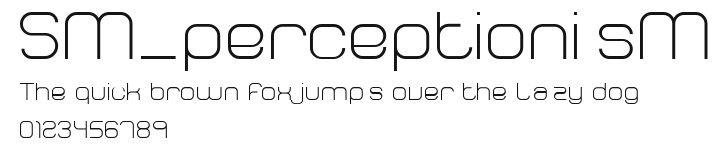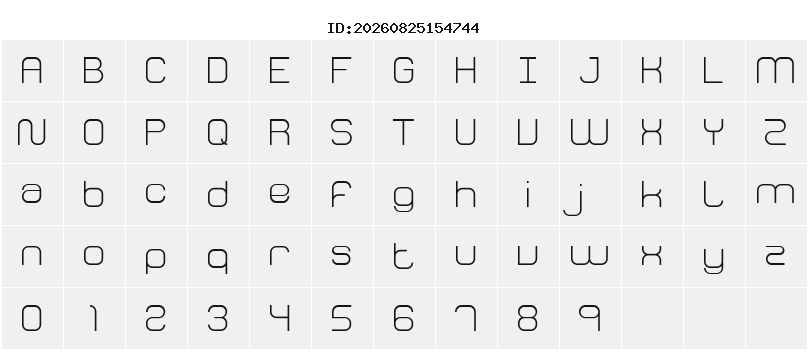
• Font Name: SM_perceptionisM
• Font ID: SM_perceptionisM
• Full Font Name: SM_perceptionisM
• Version: perceptionisM | Copyright (C) 2003 Dan Meyer (aka smashmethod)
• PostScript Name: SMperceptionisM
• Character Count: 647
• Copyright: http://smashmethod.mg2.org | Copyright (C) 2003 Dan Meyer
About SM_perceptionisM.ttf
SM_perceptionisM.ttf is a modern, elegant sans-serif font designed for ultimate readability and visual harmony. Perfect for branding, headlines, web design, and print materials.